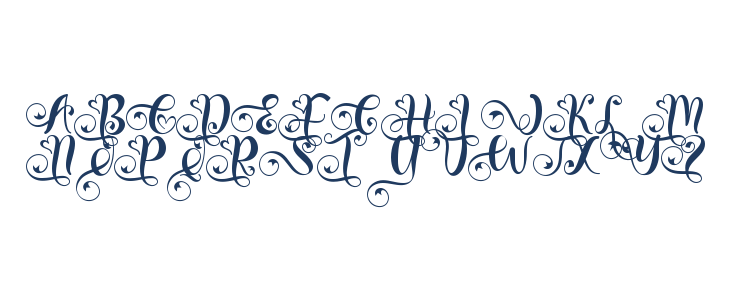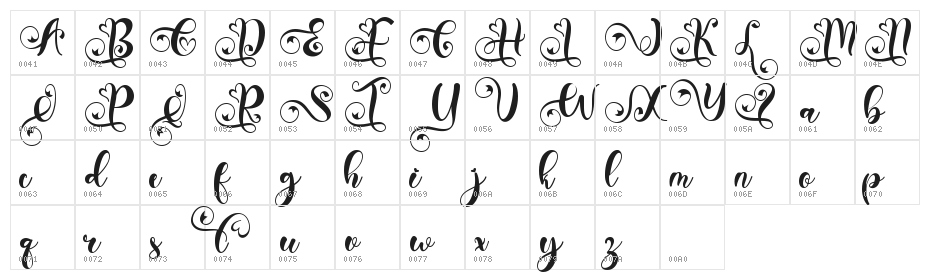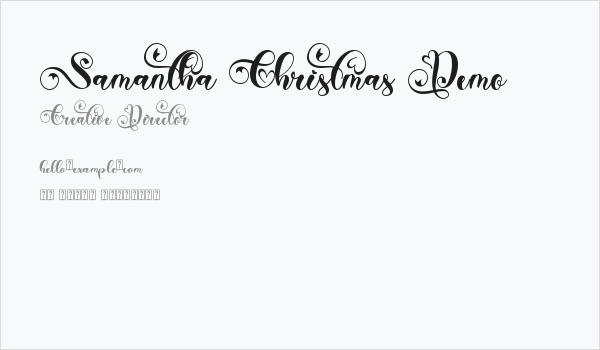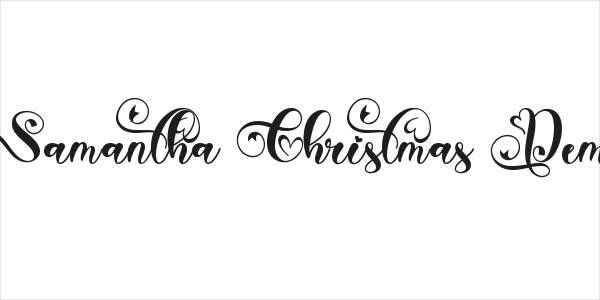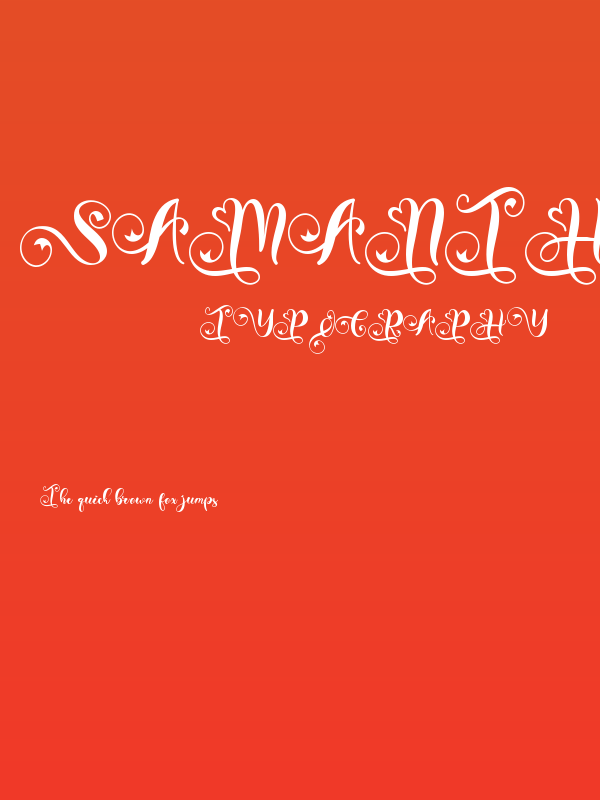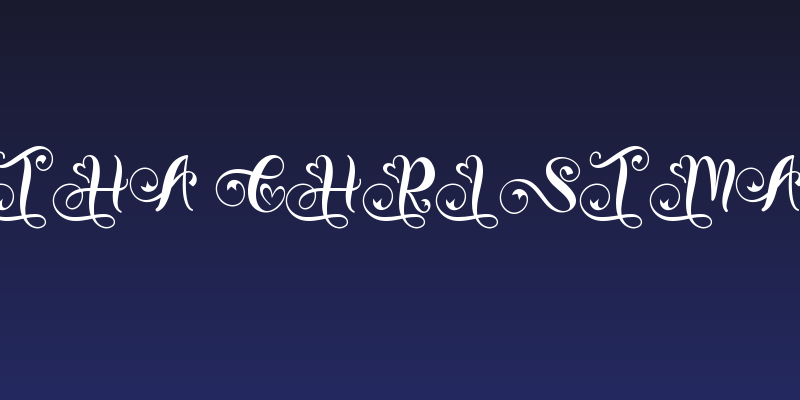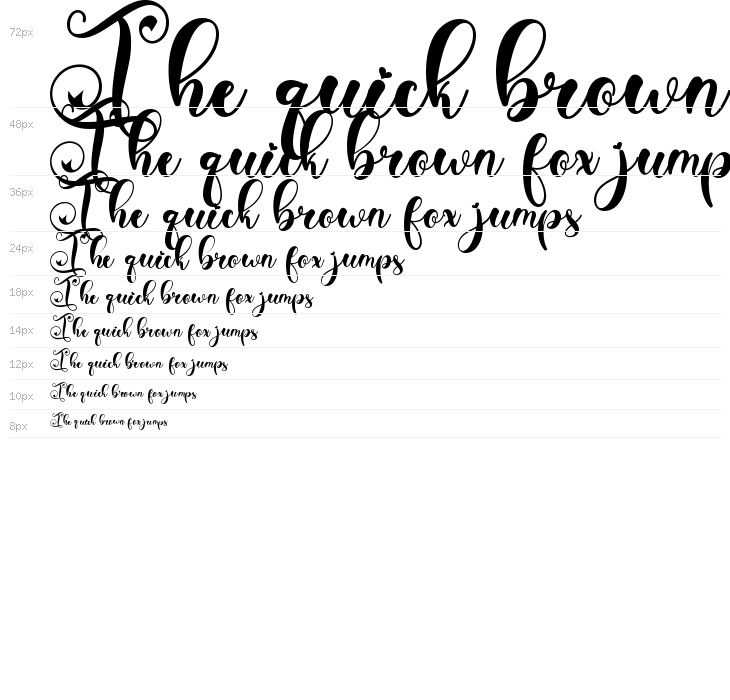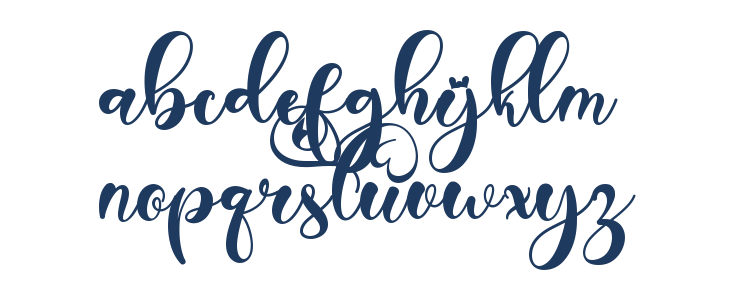
Samantha Christmas Demo Font
Samantha Christmas Demo Description
A highly decorative script font with elaborate swashes and flourishes, featuring both uppercase and lowercase letters with ornate, whimsical detailing. The uppercase characters are especially embellished, while the lowercase set is bold, flowing, and connected, evoking a festive and elegant feel.
| Overall Style | Decorative, Festive, Elegant |
| Use Case | Headlines, Logos, Invitations, Greeting cards |
| Proposed Projects | Holiday cards, event invitations, festive branding, decorative headlines, seasonal packaging. |